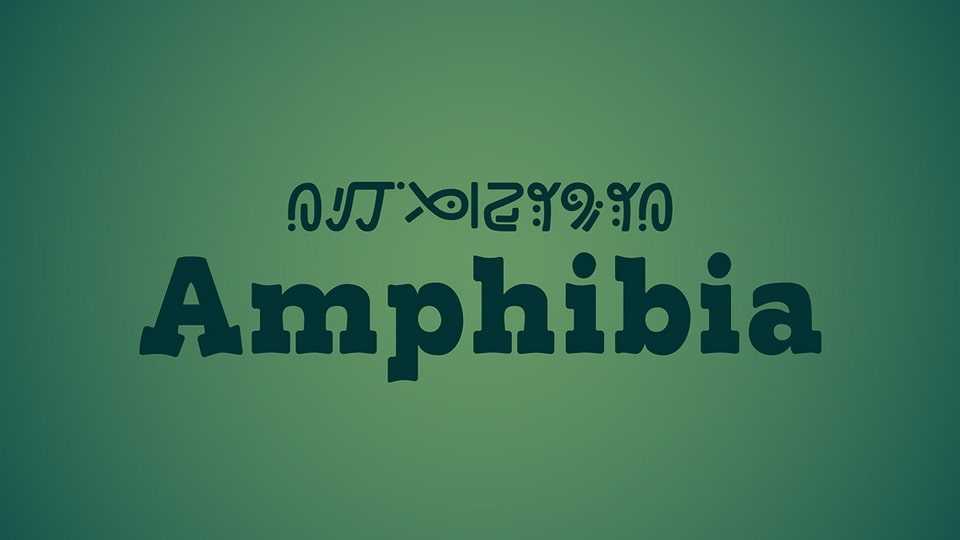
Download Amphibia font, a lovingly crafted typeface that pays homage to Matt Braly’s Amphibia series, a show that holds a special place in the heart of font’s author.